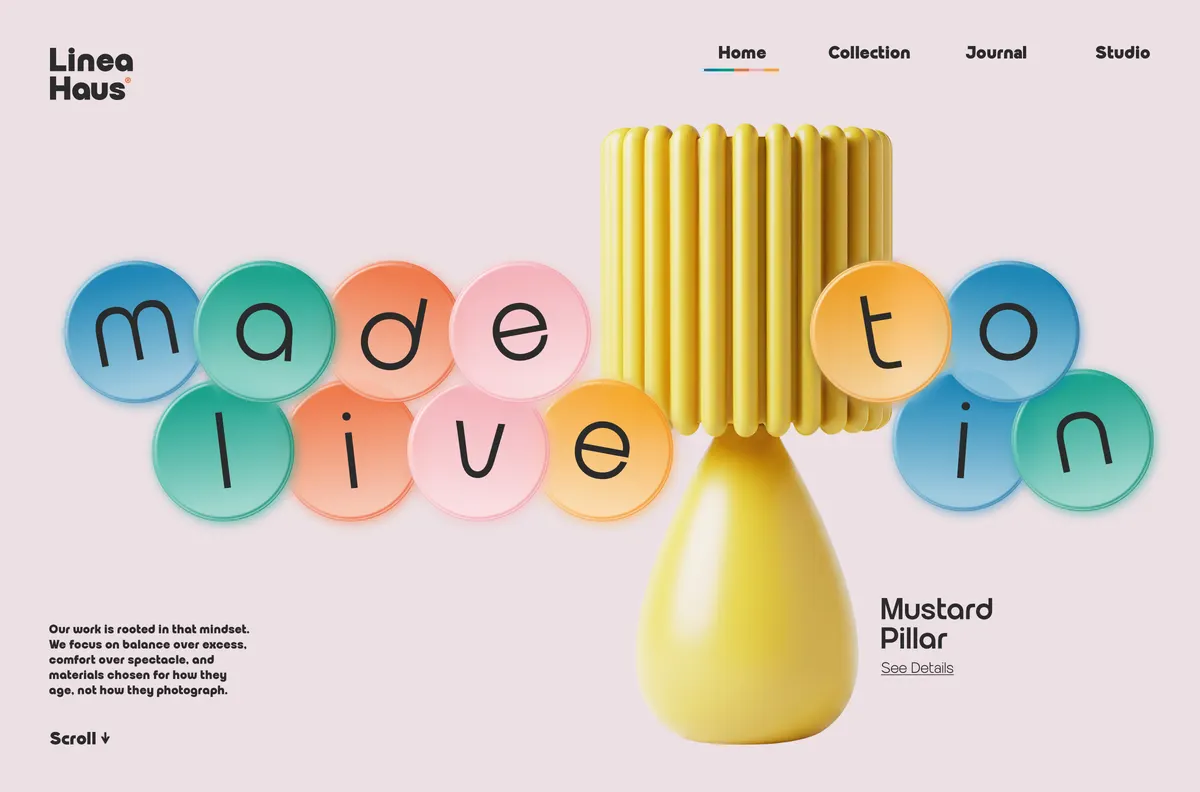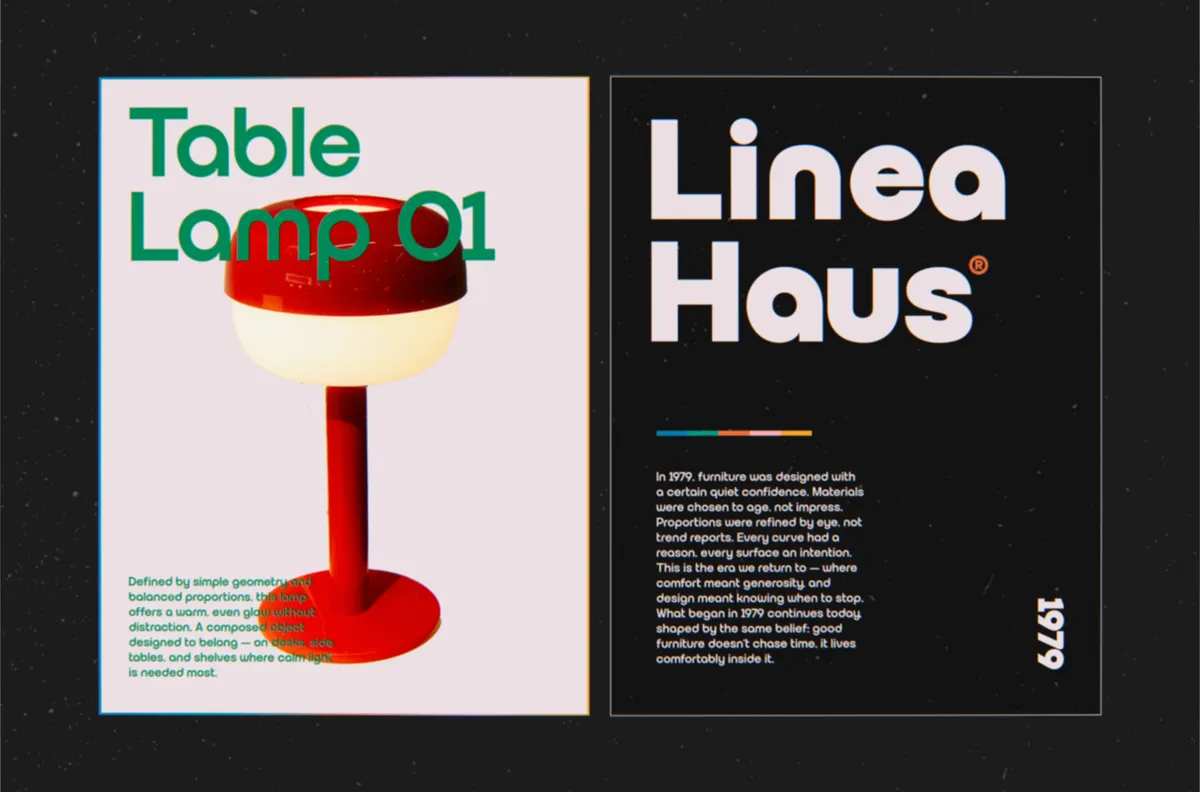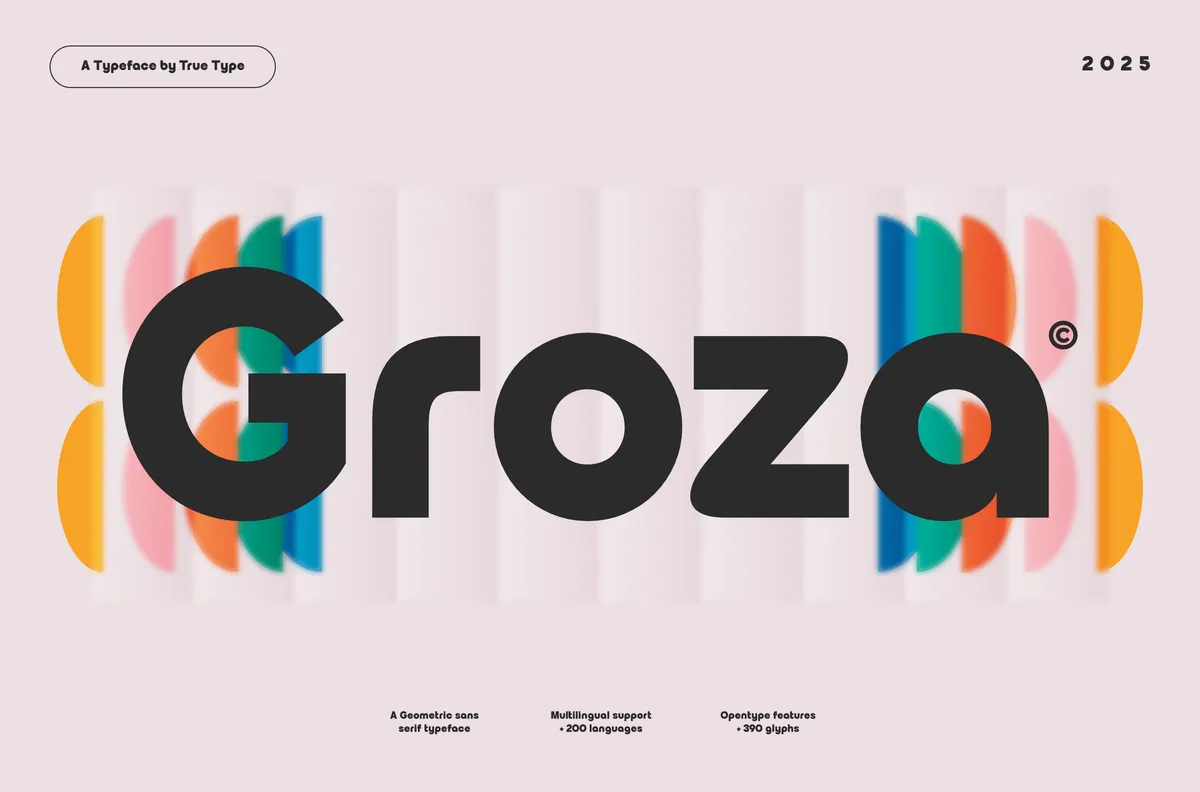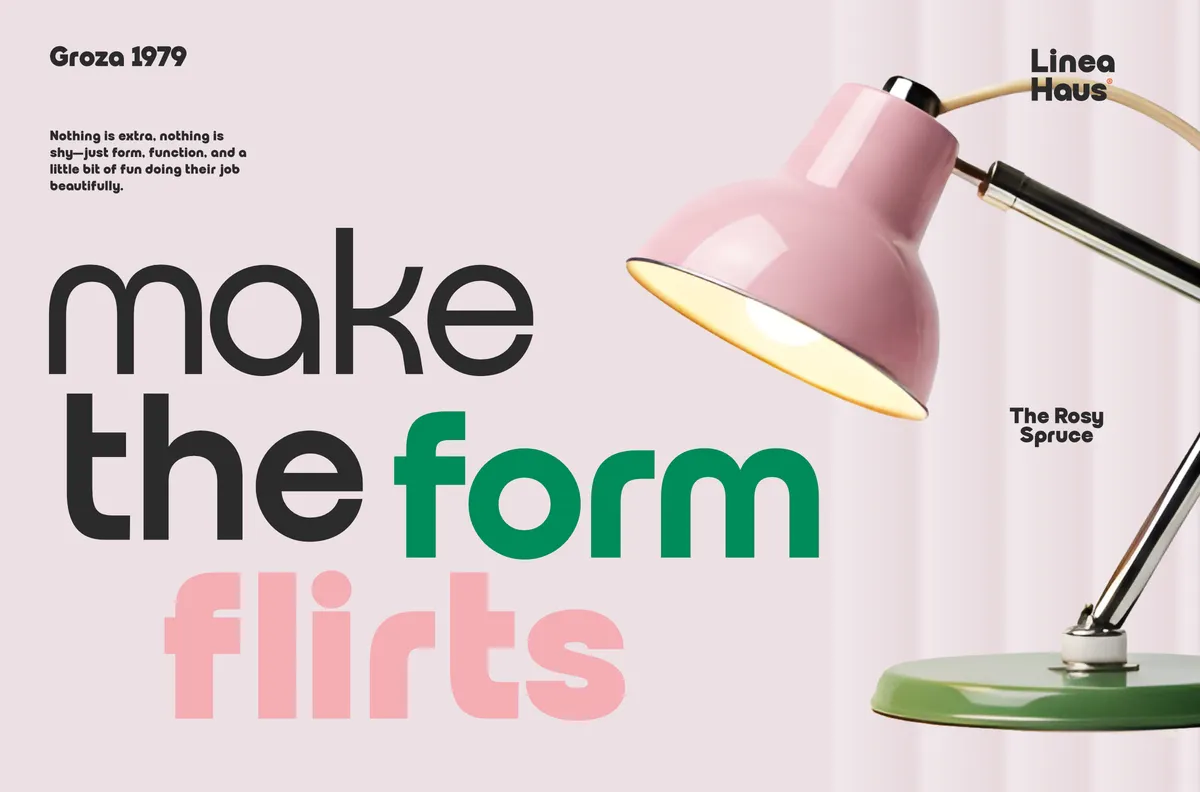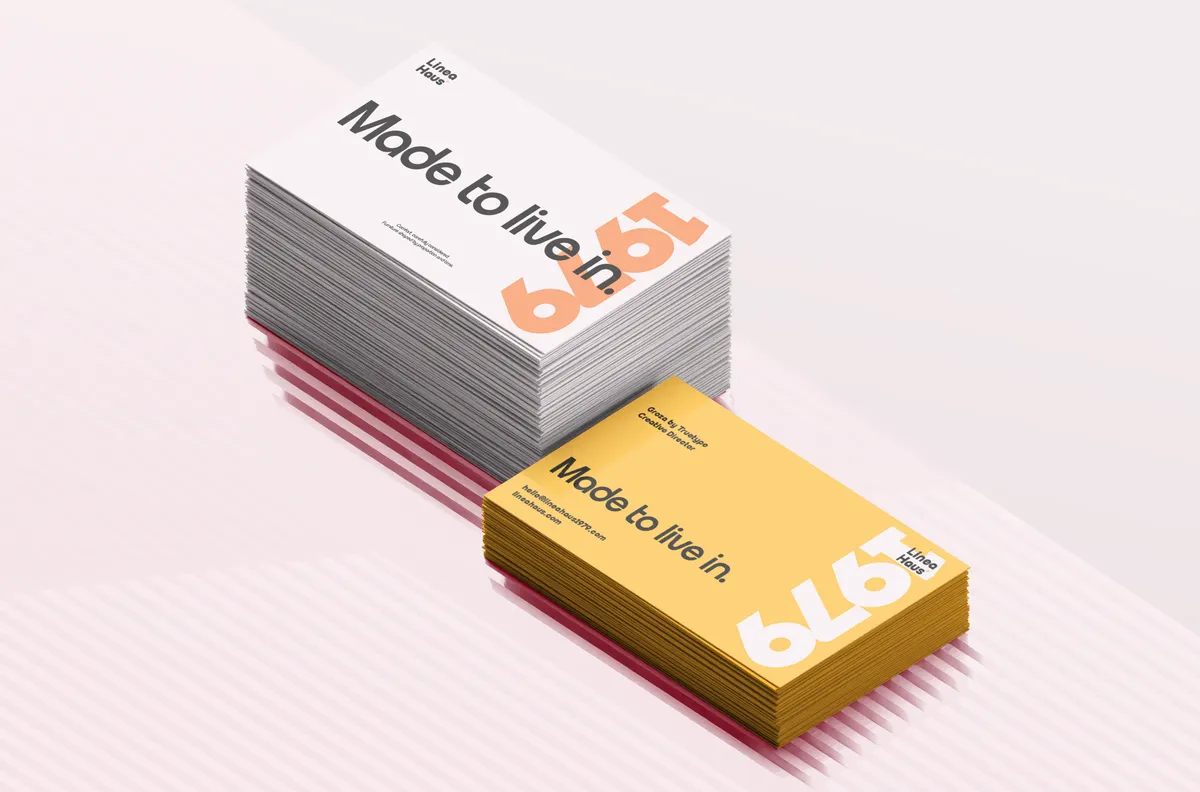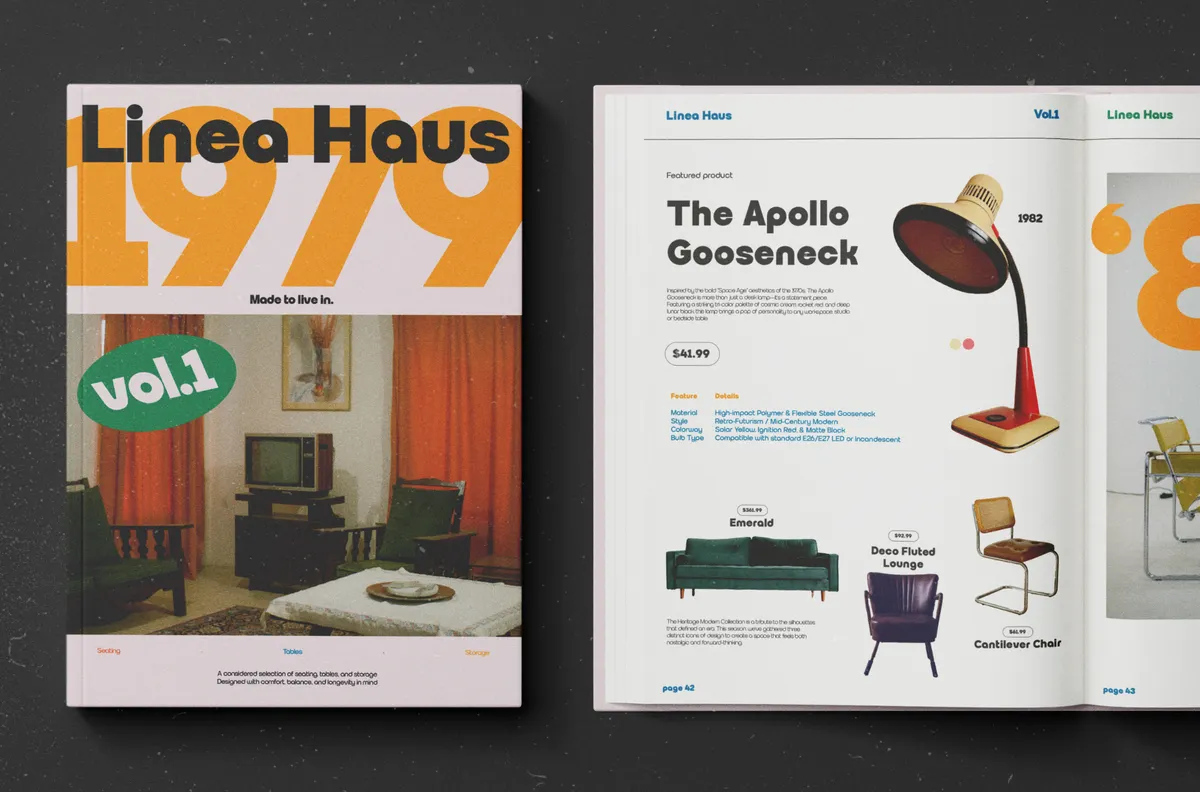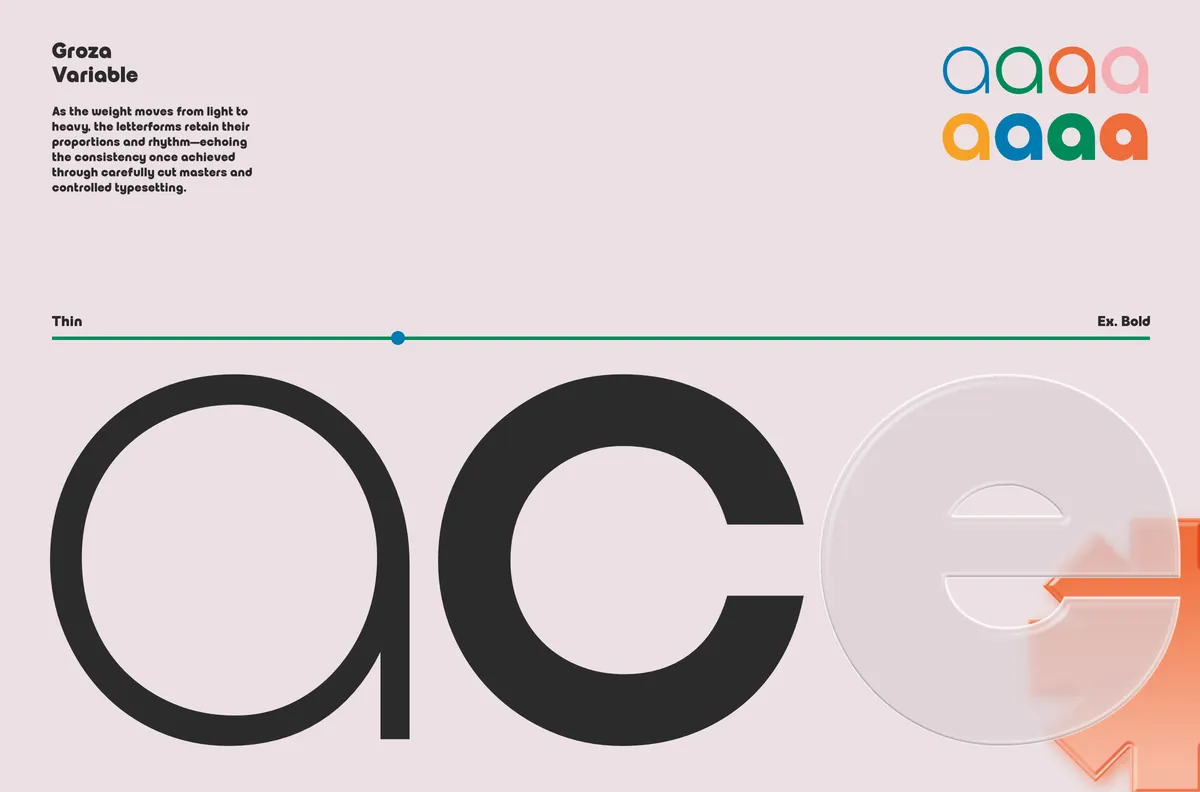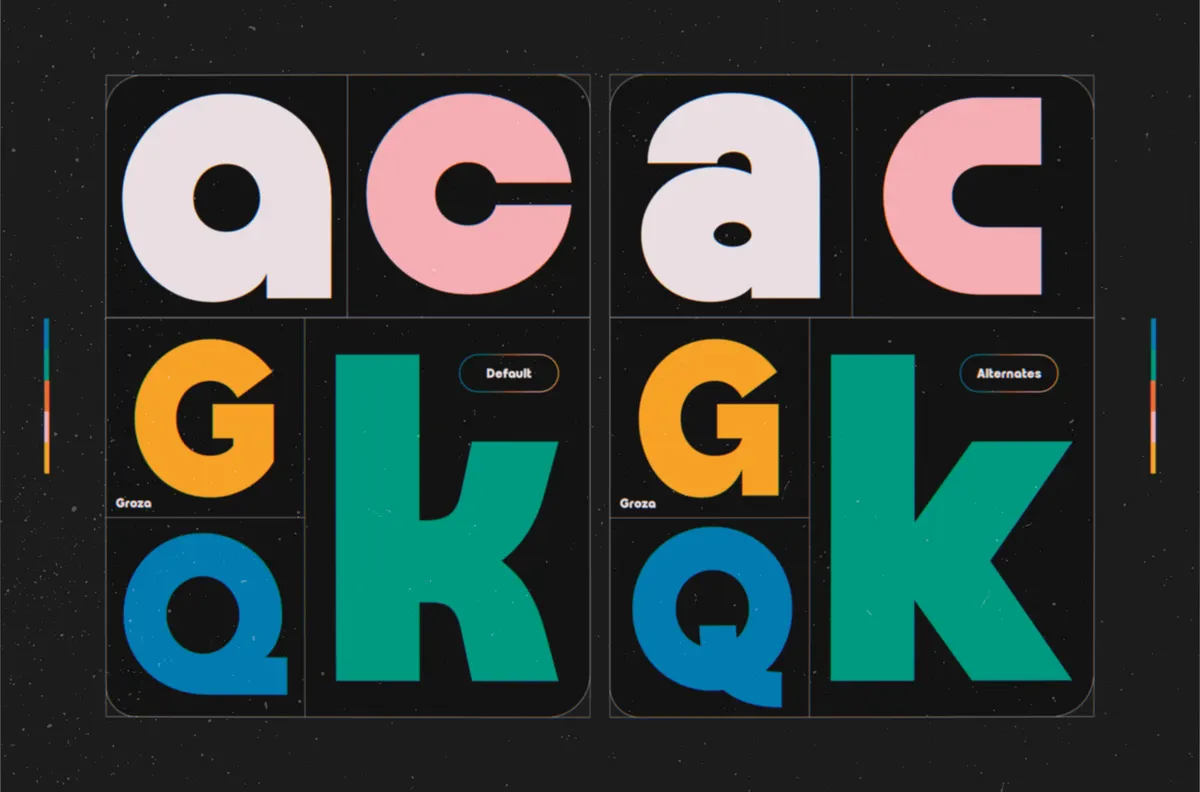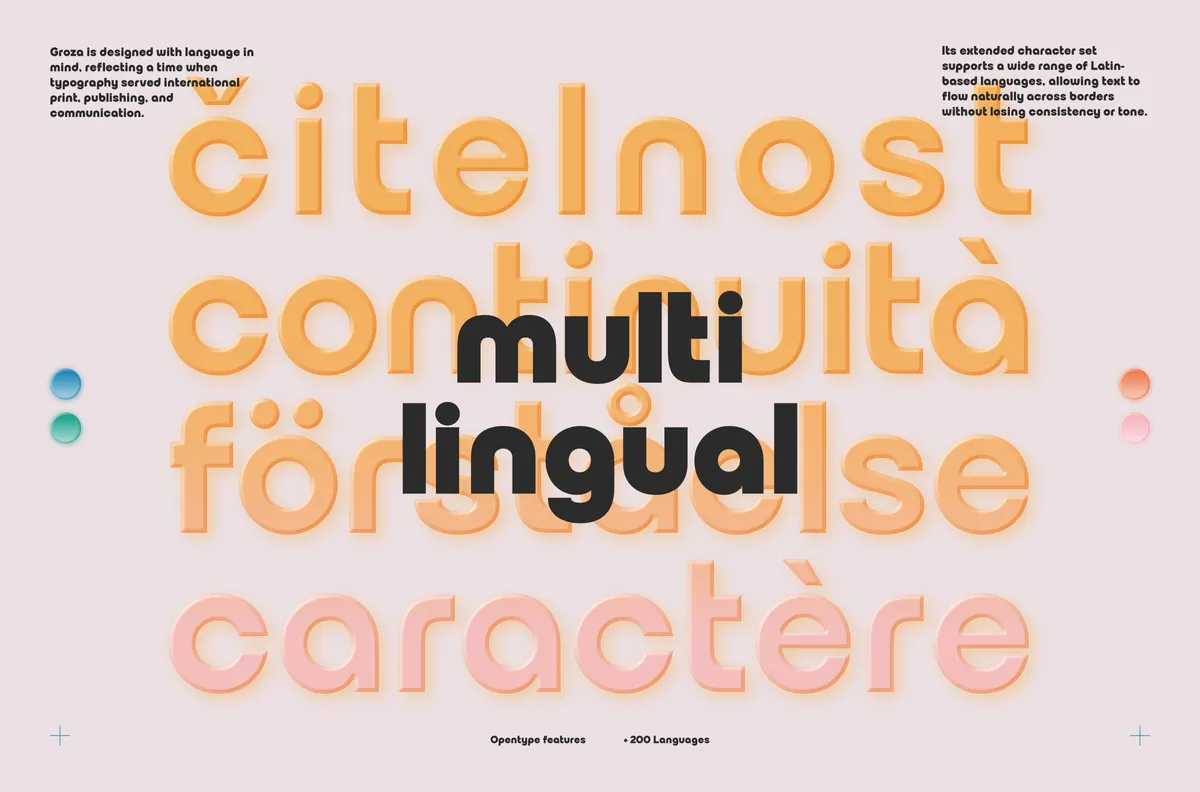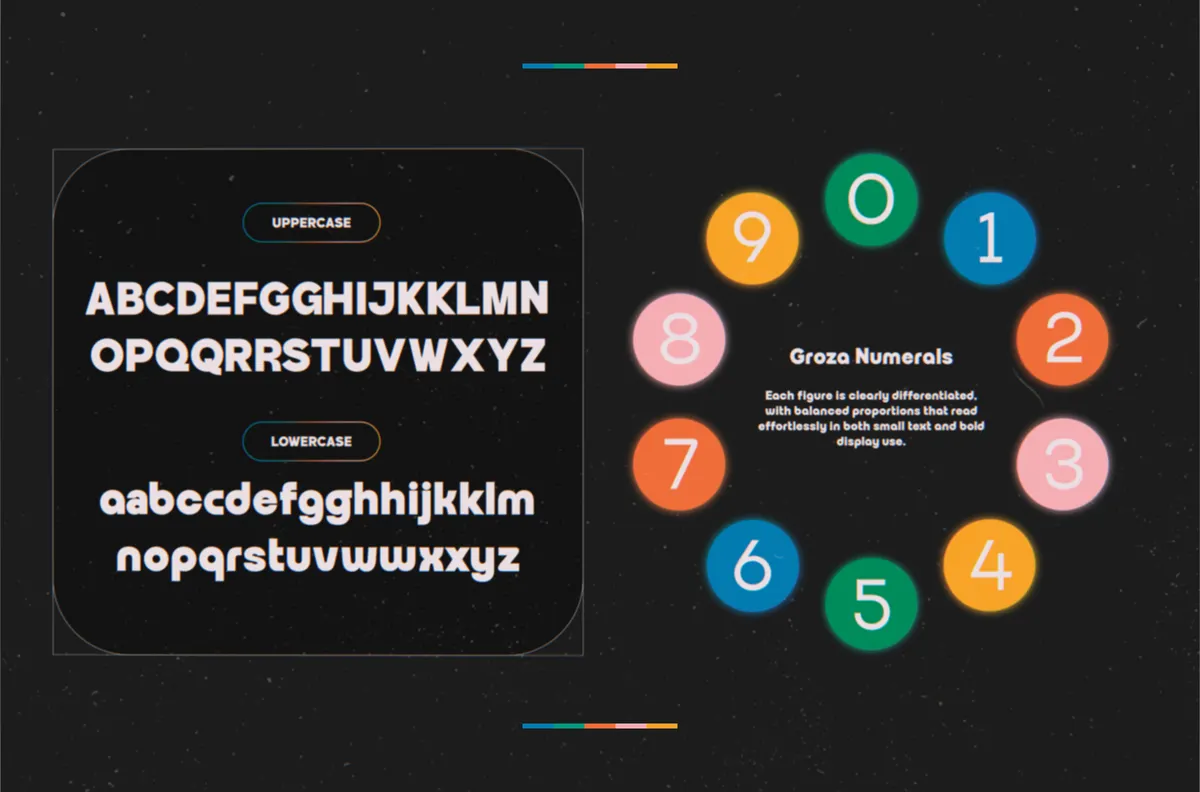
TRT Groza - Geometric Sans Font
Groza grows from a strict geometric skeleton: circular bowls, even stroke weight, and a wide-set rhythm running through the whole alphabet. Blunt terminals and consistent proportions carry that geometry down through eight weights, from a hairline Thin to a dense Extra Bold, and a variable font file covers the same 100–800 range in a single file.
The lighter weights, Thin through Regular, hold up in long-form text and subheads. Medium through Extra Bold carry logotypes, posters, and headline work where the geometry needs to read from across a room. A stylistic alternate set swaps in single-story a and c along with looped G, K, Q, and R, and contextual ligatures smooth out pairs like Th and ct.
Usage: packaging, branding, logos, poster and signage design, editorial layouts, social campaigns, product labels.